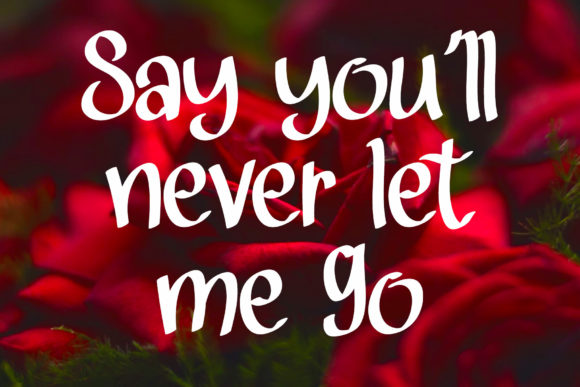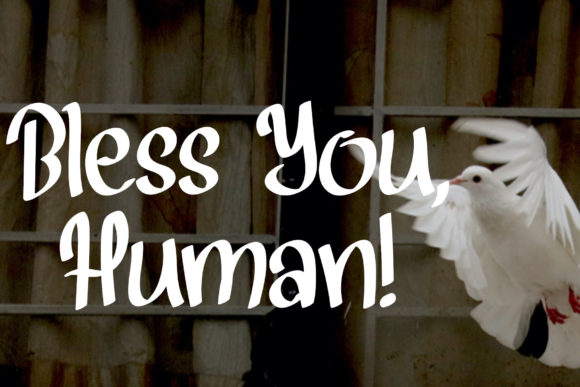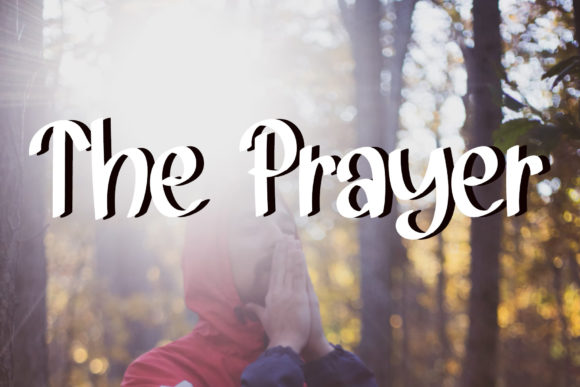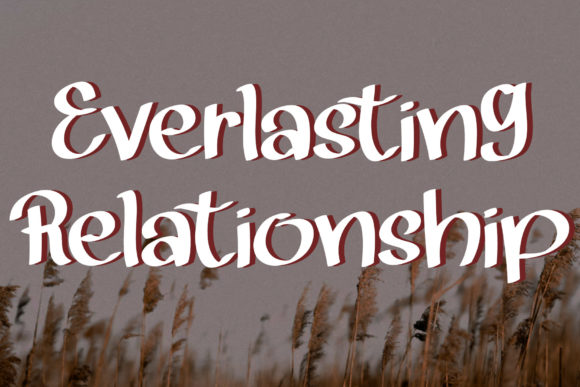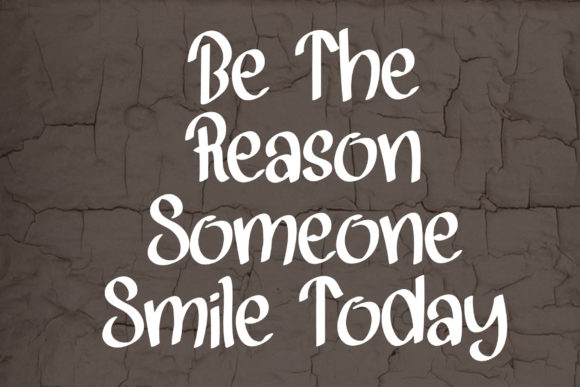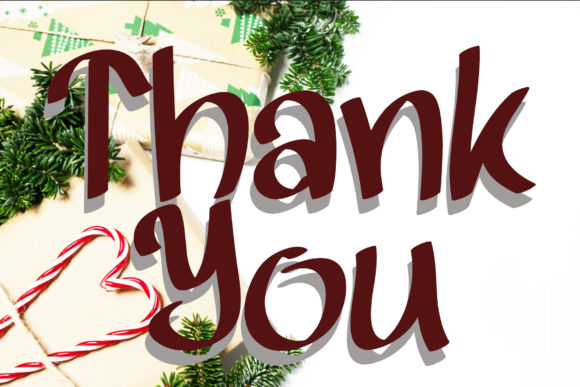
Blessing December Font: Elevate Your Designs with Delicate Charm
Are you on the hunt for a beautiful display font that can add a touch of elegance and playfulness to your designs? Look no further than Blessing December Font! This stunning font is perfect for crafters, designers, and anyone looking to create visually appealing projects that exude a sense of simplicity and fun.
What Makes Blessing December Font So Special?
Blessing December is a beautiful display font that boasts a delicate charm, making it an ideal choice for a variety of design projects. Its elegant and refined aesthetic is perfect for:
- Wedding invitations: Add a touch of sophistication and romance to your wedding stationery with Blessing December.
- Thank you cards: Express your gratitude in style with this beautiful font.
- Quotes: Make your quotes stand out with the elegant and refined look of Blessing December.
- Greeting cards: Create stunning greeting cards for any occasion, from birthdays to holidays.
- Logos: Use Blessing December to create a unique and memorable logo for your business or brand.
- Business cards: Elevate your business cards with a touch of elegance and sophistication.
Why Choose Blessing December Font?
So, what sets Blessing December apart from other fonts? Here are just a few reasons why designers and crafters love this beautiful display font:
- Delicate charm: Blessing December boasts a delicate and refined aesthetic that adds a touch of elegance to any design.
- Simple and fun: This font is perfect for designers who want to add a playful touch to their projects without sacrificing sophistication.
- Versatile: Use Blessing December in a variety of design projects, from wedding stationery to business cards.
- Easy to read: Despite its delicate nature, Blessing December is easy to read, making it perfect for body text and captions.
Tips for Using Blessing December Font
To get the most out of Blessing December, here are a few tips to keep in mind:
- Pair with bold fonts: Combine Blessing December with bold fonts to create a striking contrast that adds visual interest to your designs.
- Experiment with colors: Try pairing Blessing December with different colors to create a unique and eye-catching look.
- Use in combination with graphics: Add graphics and illustrations to your designs to create a visually appealing project that showcases Blessing December.
- What type of font is Blessing December? Blessing December is a display font, perfect for use in titles, headings, and other design elements.
- Is Blessing December easy to read? Yes, despite its delicate nature, Blessing December is easy to read, making it perfect for body text and captions.